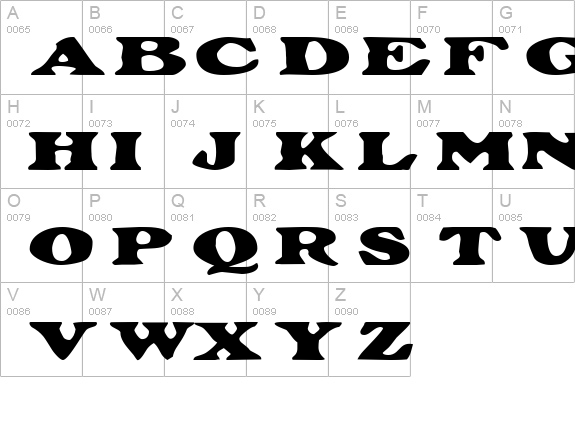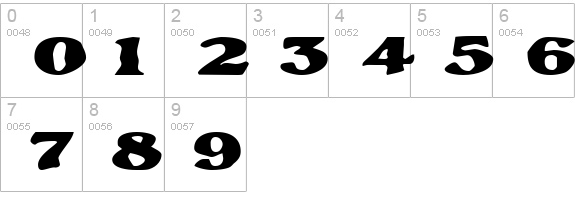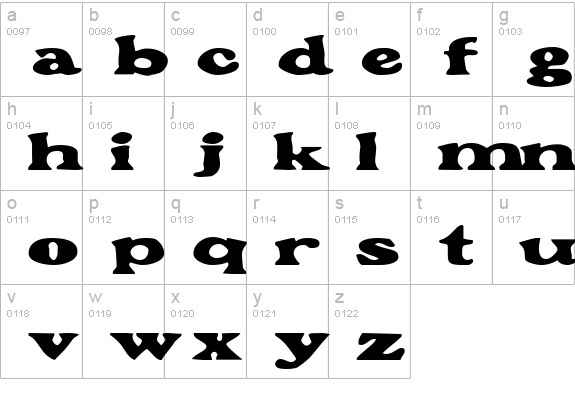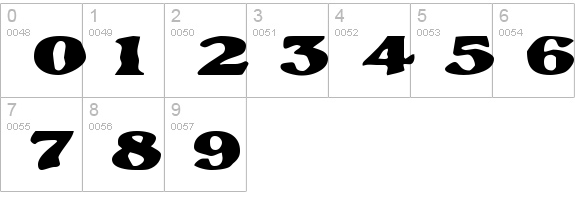
GrantExtended Font Details
GrantExtended font is a modern and stylish typeface that exudes elegance and sophistication. Its extended characters offer a unique touch to any design project, making it perfect for headlines, branding, and creative projects. The clean lines and sleek curves of GrantExtended font create a professional and polished look that will elevate your designs to the next level. What makes GrantExtended font even more appealing is that it is available for free download at FontsMarket.com. This means you can easily access this high-quality font without any cost, making it a valuable addition to your font library. Whether you are a designer looking for a versatile typeface or a business owner in need of a sleek branding solution, GrantExtended font is sure to meet your needs with its timeless style and effortless sophistication. Elevate your designs with GrantExtended font today!